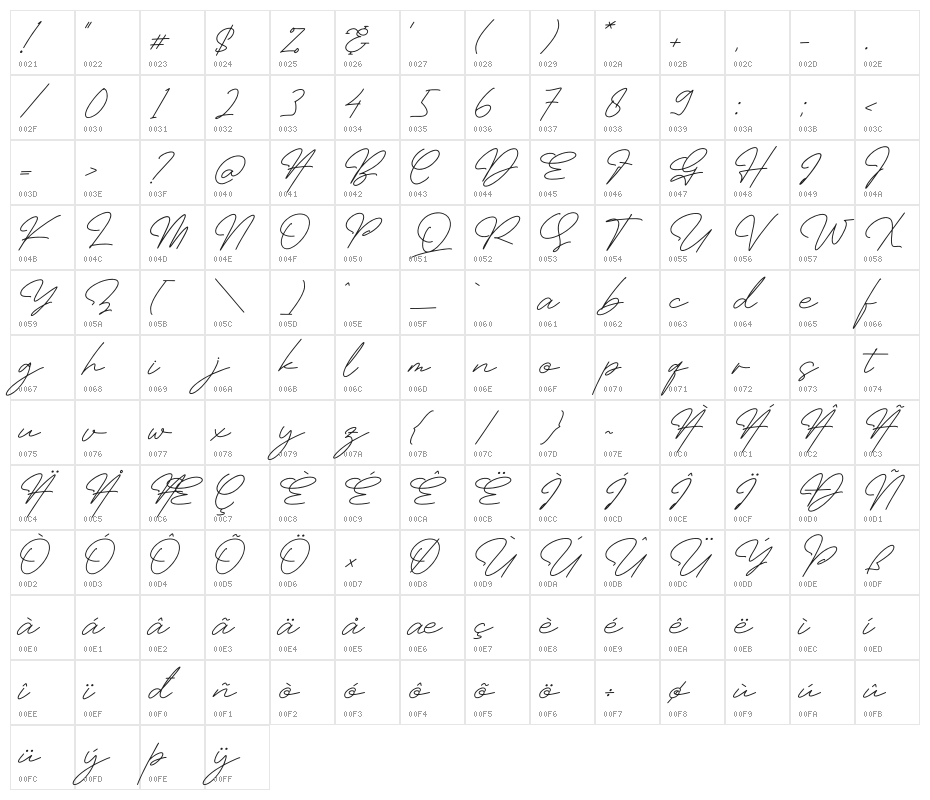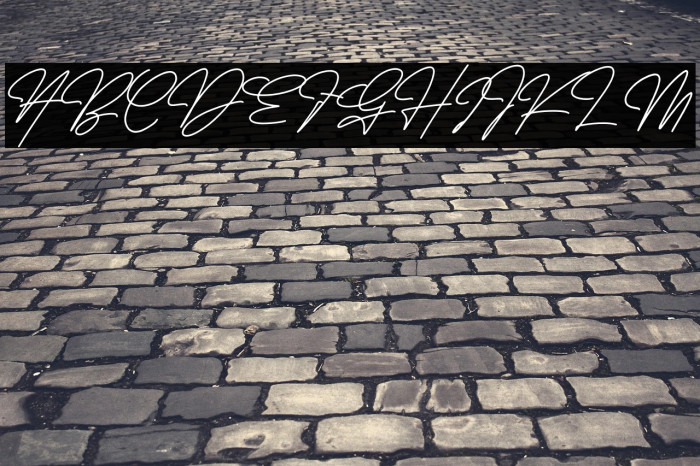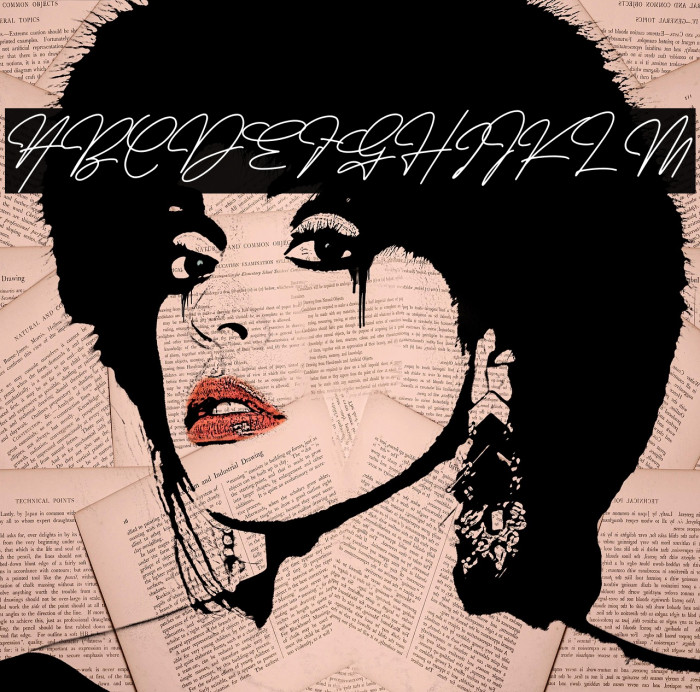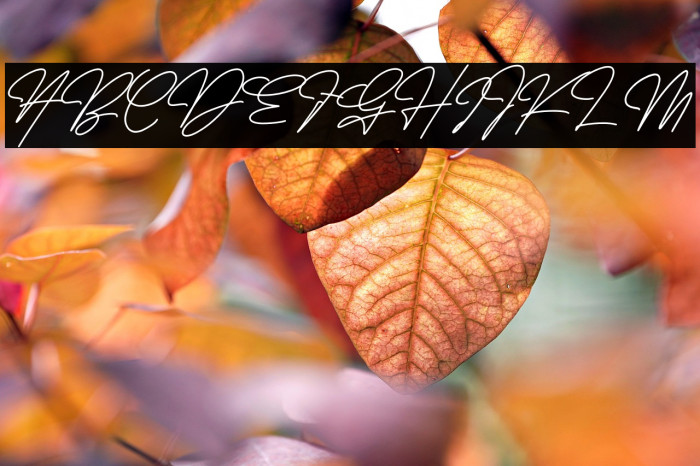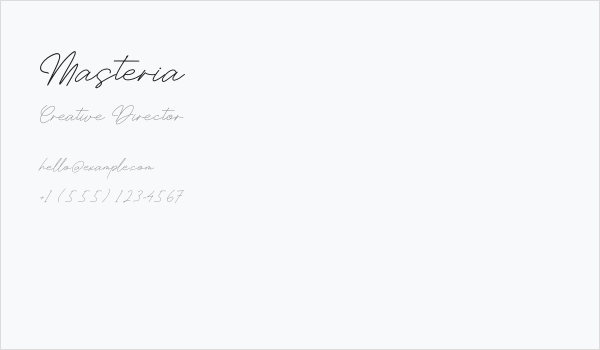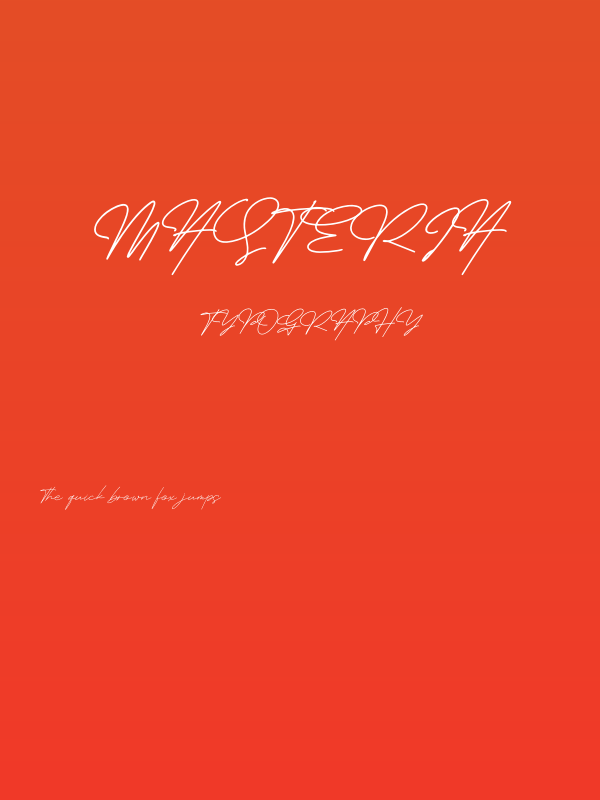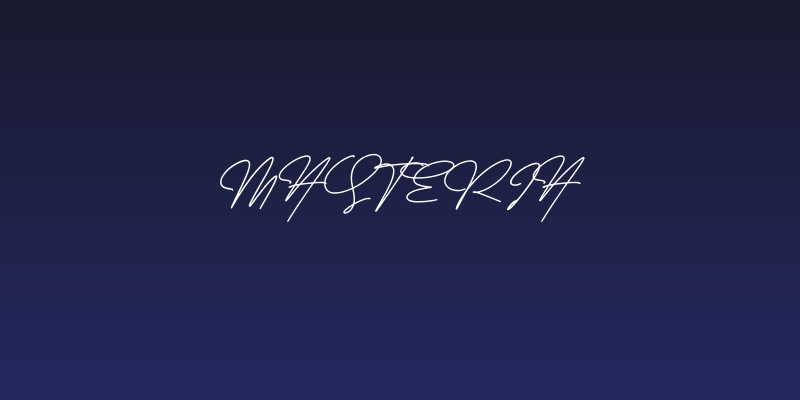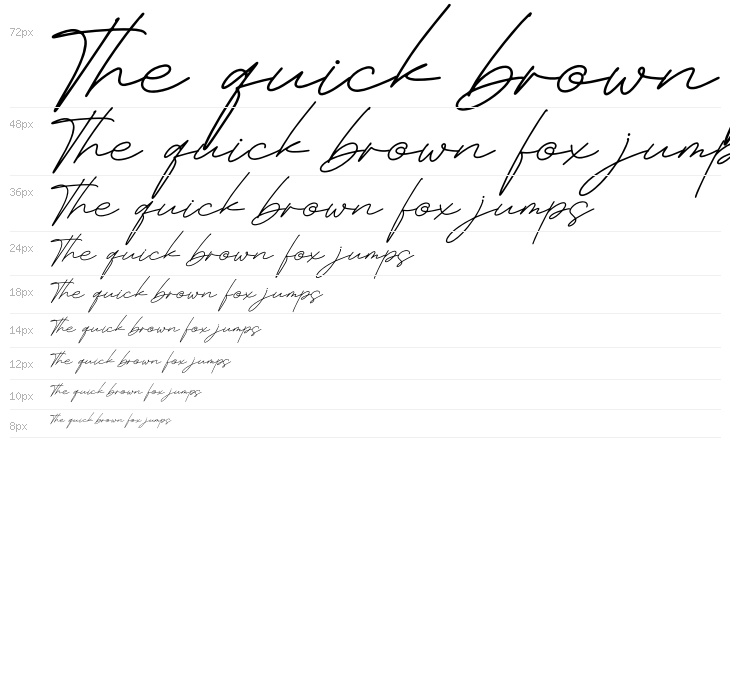
Masteria Font
Masteria Description
This elegant script font features fluid, interconnected strokes that mimic the natural flow of handwriting. The uppercase letters are characterized by sweeping curves and loops, while the lowercase letters maintain a consistent slant, enhancing the cursive style. The numerals and special characters are designed with the same graceful flair, ensuring a cohesive look across all text. The font's thin lines and delicate curves give it a sophisticated and refined appearance, making it ideal for projects that require a touch of elegance and personal flair.
| Overall Style | Elegant |
| Use Case | Logos, Invitations, Personal Branding |
| Proposed Projects | Ideal for wedding invitations, personal branding, elegant stationery, and artistic projects. |